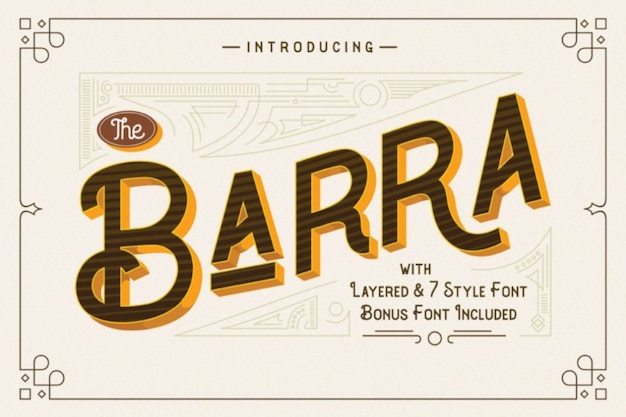
Barra Font
ViactionType Studio
Barra is a rustic font that combines a worn, weathered look with elegant swashes. Each character is designed with a rugged texture, evoking the charm of aged wood or vintage signage, while graceful swashes add a touch of sophistication. Perfect for branding, invitations, or projects seeking a blend of rustic charm and elegance, Barra brings a unique and timeless appeal to your designs.